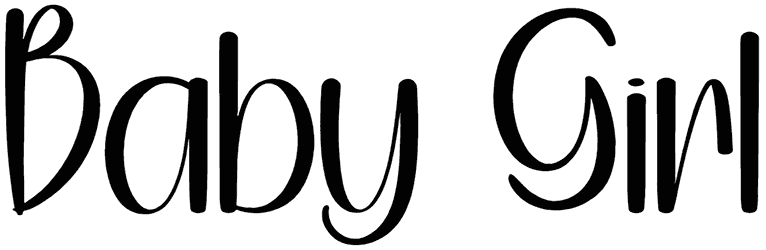
Baby Girl Font
Oh, baby, this handwritten font can make everyone fall in love with your novel design. The Baby Girl font has a cute and stunning visual, and you have almost all the characters. This fancy font is a perfect selection for a birthday card or anything else. Give it a chance and create your intended layout to see how cool it will be.